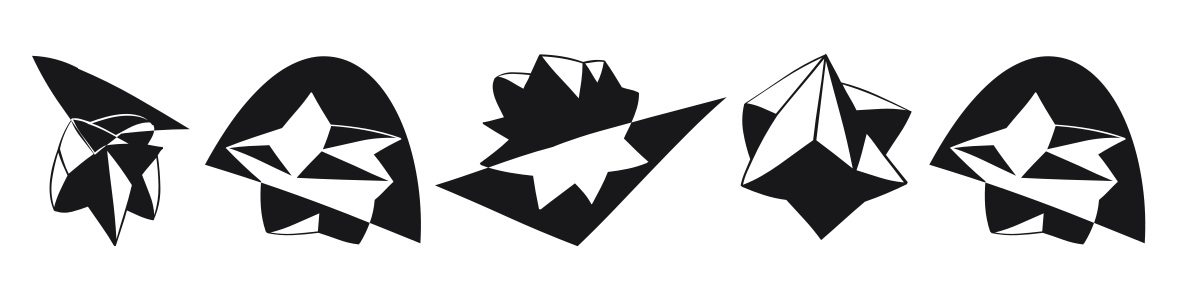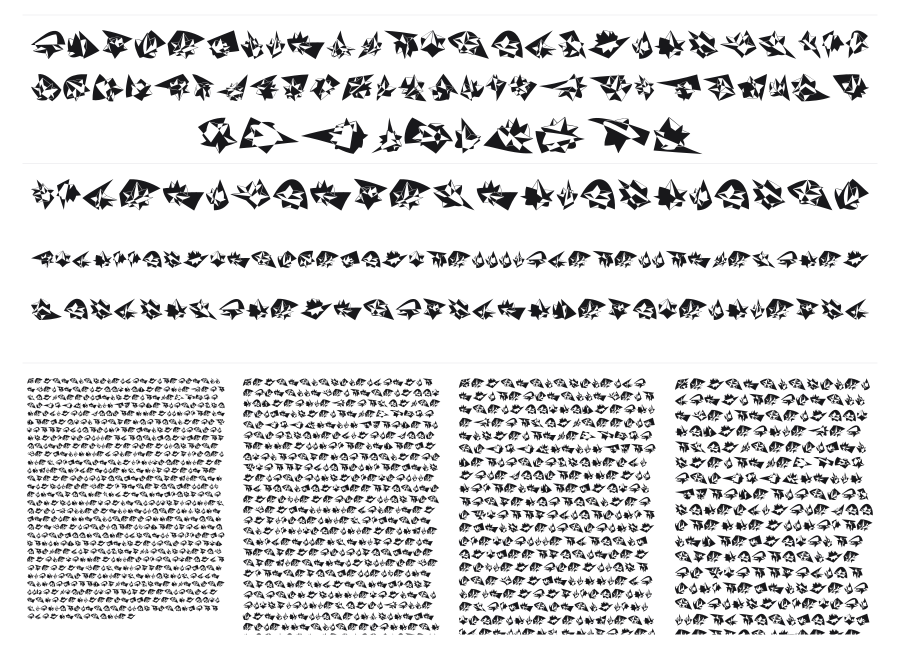
Formo
Formo is a dingbat font built entirely from angular, shattered geometric symbols that evoke broken crystal, crumpled origami, or exploding star forms. Each glyph is a bold black shape with sharp facets and internal cutouts that give the collection a raw, high-energy feel. It works as decorative ornaments, pattern elements, or accents in edgy design work.